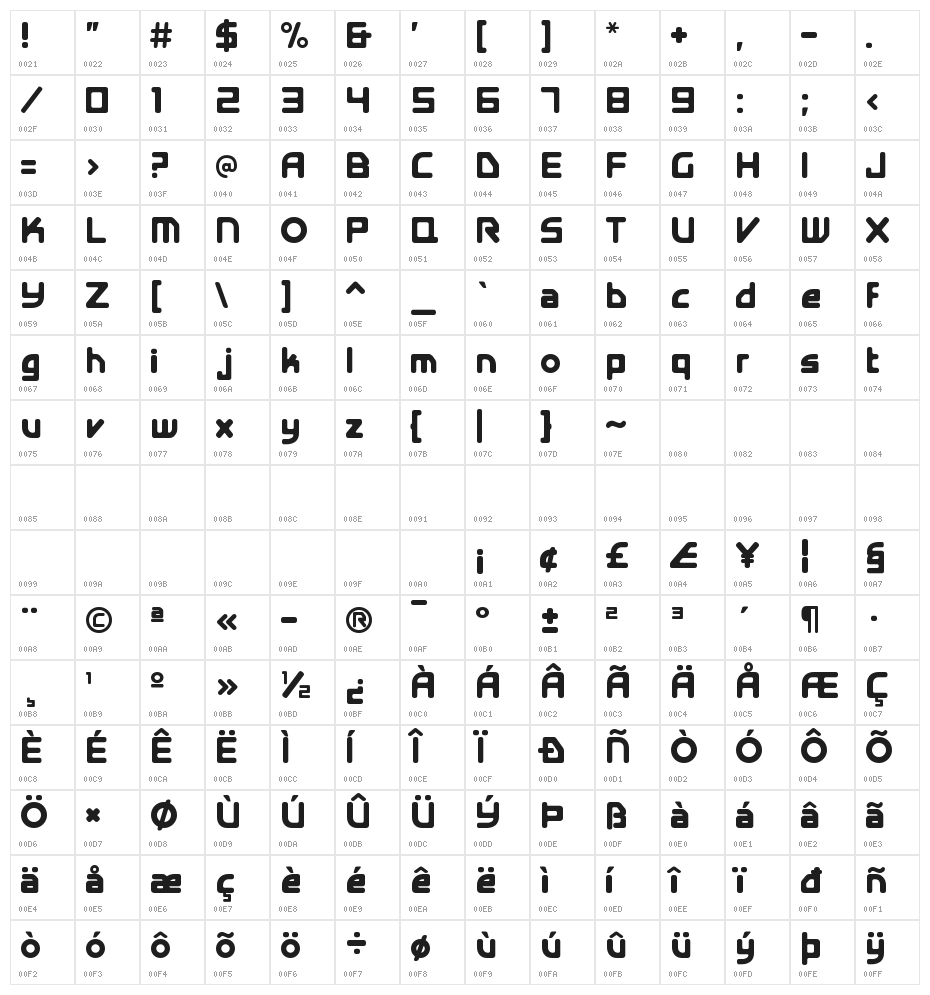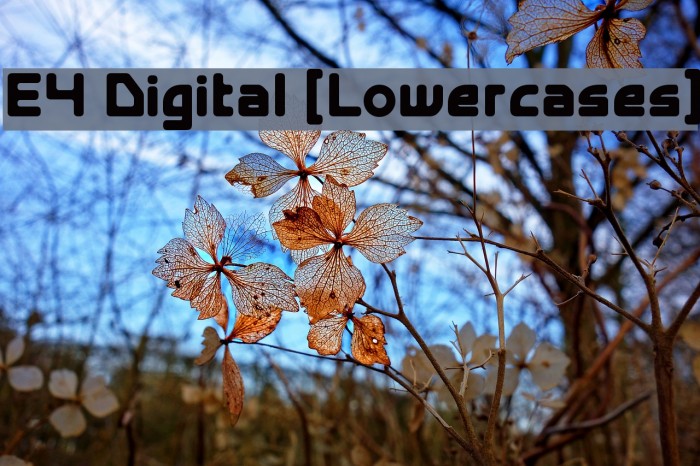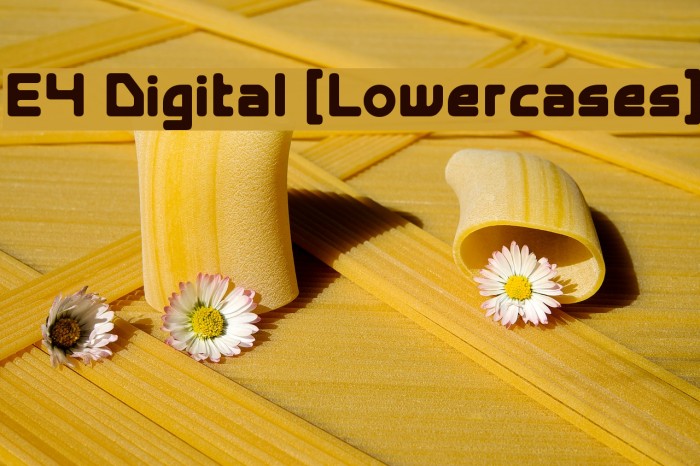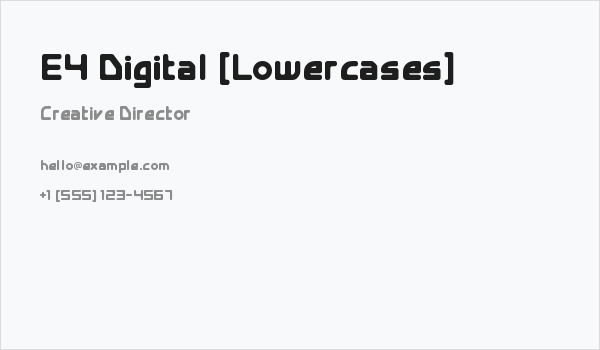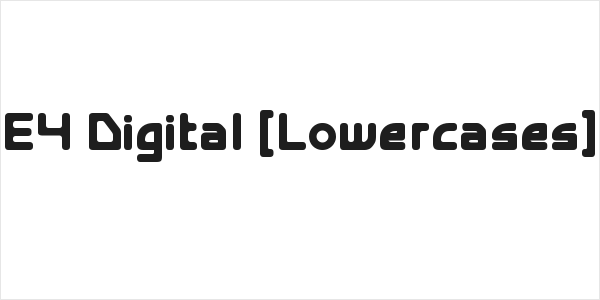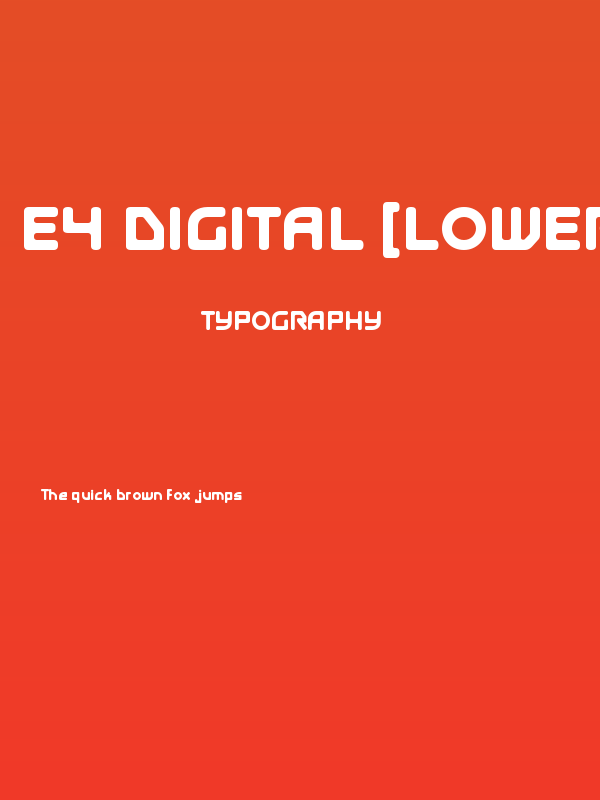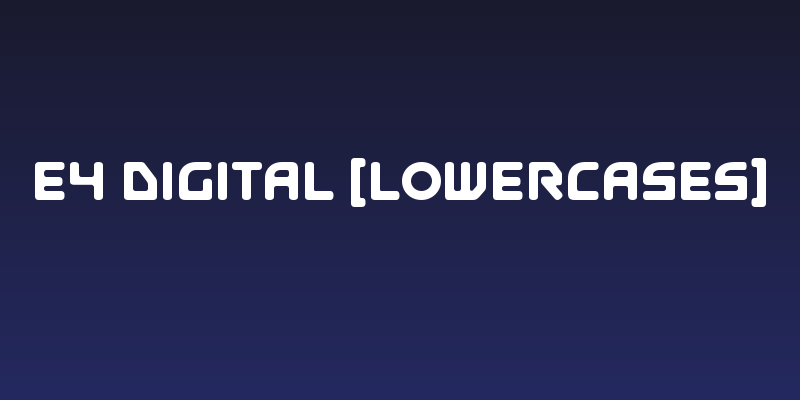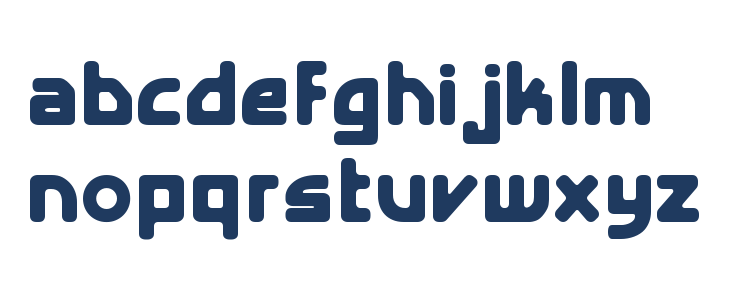
E4 Digital [Lowercases] Font
✎ Futuristic
| Anwendungsfall | Headlines, Logos, Digital displays |
| Vorgeschlagene Projekte | Ideal for digital interfaces, tech branding, video game graphics, and futuristic designs. |